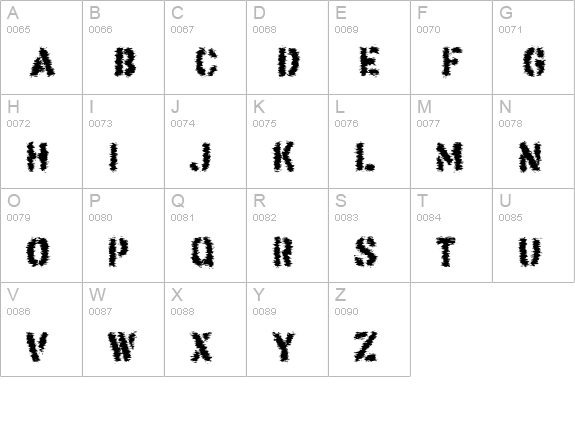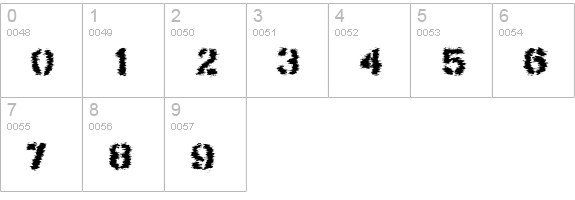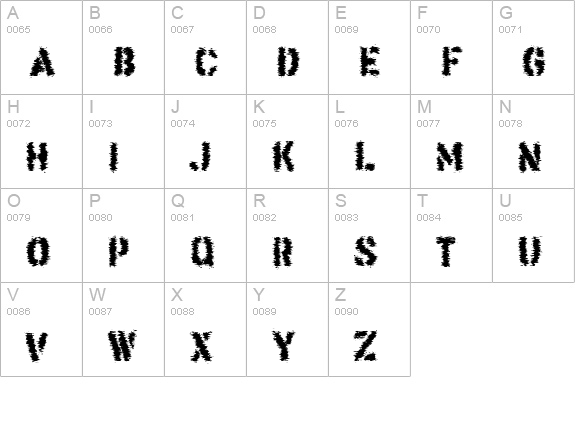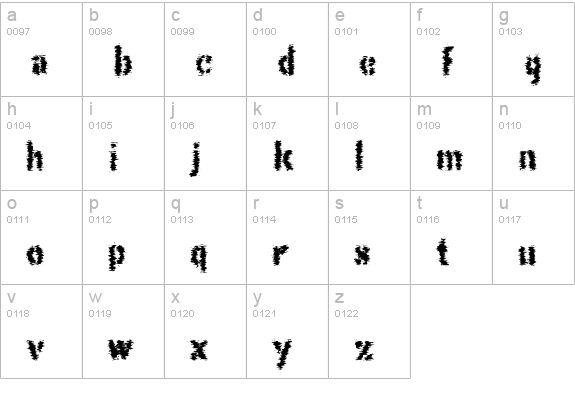
This Corrosion Font Details
This Corrosion font is a stunning display typeface that exudes a captivatingly rugged and corroded aesthetic. With its edgy and weathered appearance, it adds a touch of vintage charm to any design project. This font is perfect for creating eye-catching headlines, poster designs, album covers, and more. What sets This Corrosion font apart is its unique ability to effortlessly blend the grunge and industrial elements, making it an ideal choice for projects that require a raw and rebellious vibe. Its jagged edges and distressed texture create an authentic and worn-out look, giving your designs an unmistakable character. Not only does This Corrosion font possess an irresistible visual appeal, but it also offers versatility and ease of use. It comes with a wide range of characters, including uppercase letters, lowercase letters, numerals, punctuation, and special symbols. This versatility allows you to experiment and explore endless design possibilities. The best part is that This Corrosion font is freely available to download at FontsMarket.com. This means you can effortlessly enhance your designs without worrying about any additional costs. Whether you are a student, a professional designer, or a hobbyist, the accessibility of this font ensures that it can be utilized by everyone, regardless of their budget. So, if you are looking to add a touch of urban grit to your design projects, This Corrosion font is the perfect choice. Download it for free at FontsMarket.com and unleash the power of its weathered and corroded charm. Let your creativity flow and watch your designs come to life with the bold and captivating presence of This Corrosion font.